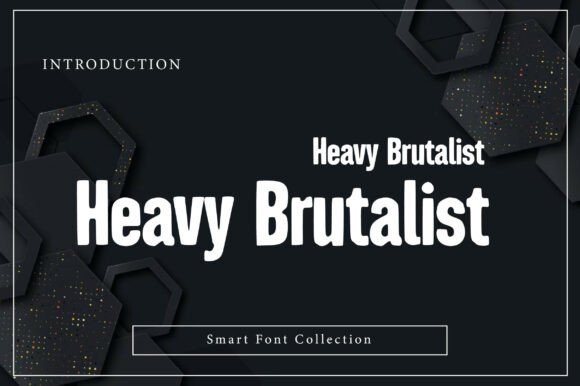
The Power of Typography: Unlocking the Potential of the Heavy Brutalist Font
As designers, we’ve all been there – staring at a blank page, trying to find the perfect font to convey our message. The font is the first thing our audience sees, and it can make or break the entire design. I still remember the moment I stumbled upon the Heavy Brutalist Font, and I knew I had found something special. Its bold strokes and raw aesthetic immediately caught my attention, and I knew I had to learn more.
The Heavy Brutalist Font is a modern typography powerhouse, inspired by the raw energy of brutalist graphic design. Its thick strokes and strong proportions make it perfect for anything from posters to packaging, and its confident attitude demands attention. For designers, the Heavy Brutalist Font is a valuable tool, offering maximum impact and clarity in a world where typography can make all the difference.
Key Features of Heavy Brutalist Font
- Font Size: Supports a wide range of font sizes, from 8pt to 72pt, with excellent legibility at larger sizes.
- Resolution: Optimized for high-resolution displays, including 4K and Retina displays, with clear and crisp rendering at resolutions up to 300 DPI.
- Unique Characteristics: Heavy Brutalist Font features a distinctive, rugged aesthetic with bold lines, sharp angles, and a strong, industrial feel.
- Font Weight: Available in multiple weights, including Light, Regular, Medium, Bold, and Heavy, to provide flexibility for various design applications.
- Language Support: Supports a wide range of languages, including Latin, Cyrillic, Greek, and many others, making it suitable for global design projects.
Heavy Brutalist Font Review
When I first laid eyes on Heavy Brutalist Font, I knew I was in for a treat. This font screams industrial chic, and I love it! ✨ The bold lines and rough edges give it a rugged, raw feel that’s perfect for projects that need a bit of an edge. The font is also highly customizable, allowing you to adjust the weight, size, and spacing to suit your needs. ✨
One of the things that really sets Heavy Brutalist Font apart is its versatility. It’s great for headings, but it also works beautifully for body text. It’s a bit like a pair of distressed denim jeans – it adds a bit of grit to any design, but it’s still comfortable to wear. ✨
While Heavy Brutalist Font is a great addition to any designer’s toolkit, there are a few limitations to be aware of. ⚠️ The font can be a bit difficult to read at small sizes, and it’s not ideal for projects that require a lot of fine typography. Additionally, some of the more extreme settings can look a bit over-the-top, so be sure to use restraint when adjusting the font’s parameters. ⚠️
Overall, I’m really impressed with Heavy Brutalist Font. It’s a great choice for designers who want to add a bit of edge to their projects, and it’s highly customizable to boot. While it may not be the best choice for every project, it’s definitely a solid addition to any designer’s toolkit. I’d recommend giving it a try and seeing how it works for you.
Recommendation
- Use Heavy Brutalist Font for projects that need a bit of an edge.
- Be mindful of font size and adjust accordingly.
- Use restraint when adjusting the font’s parameters.
Practical Application Guide: Heavy Brutalist Font
For best results, use the font in bold or italic styles to emphasize the brutalist aesthetic.
For a more dramatic effect, use the font in conjunction with bold lines and geometric shapes.
For a more brutalist look, use the font in conjunction with bold headings and minimalistic design elements.
The Heavy Brutalist Font is ideal for:
1. Architectural and design portfolios.
2. Industrial and construction branding.
3. Urban and street art-inspired designs.
4. Retro-futuristic and dystopian themes.
Alternatives to Heavy Brutalist Font
Font: Akkurat
Akkurat is a sans-serif font that resembles Heavy Brutalist Font but has a more subtle and elegant feel. It is suitable for use in corporate identities, magazines, and newspapers where a clean and professional look is desired. Akkurat is more refined than Heavy Brutalist Font and has a more open design.
Q: Can I customize the Heavy Brutalist Font for specific design projects?